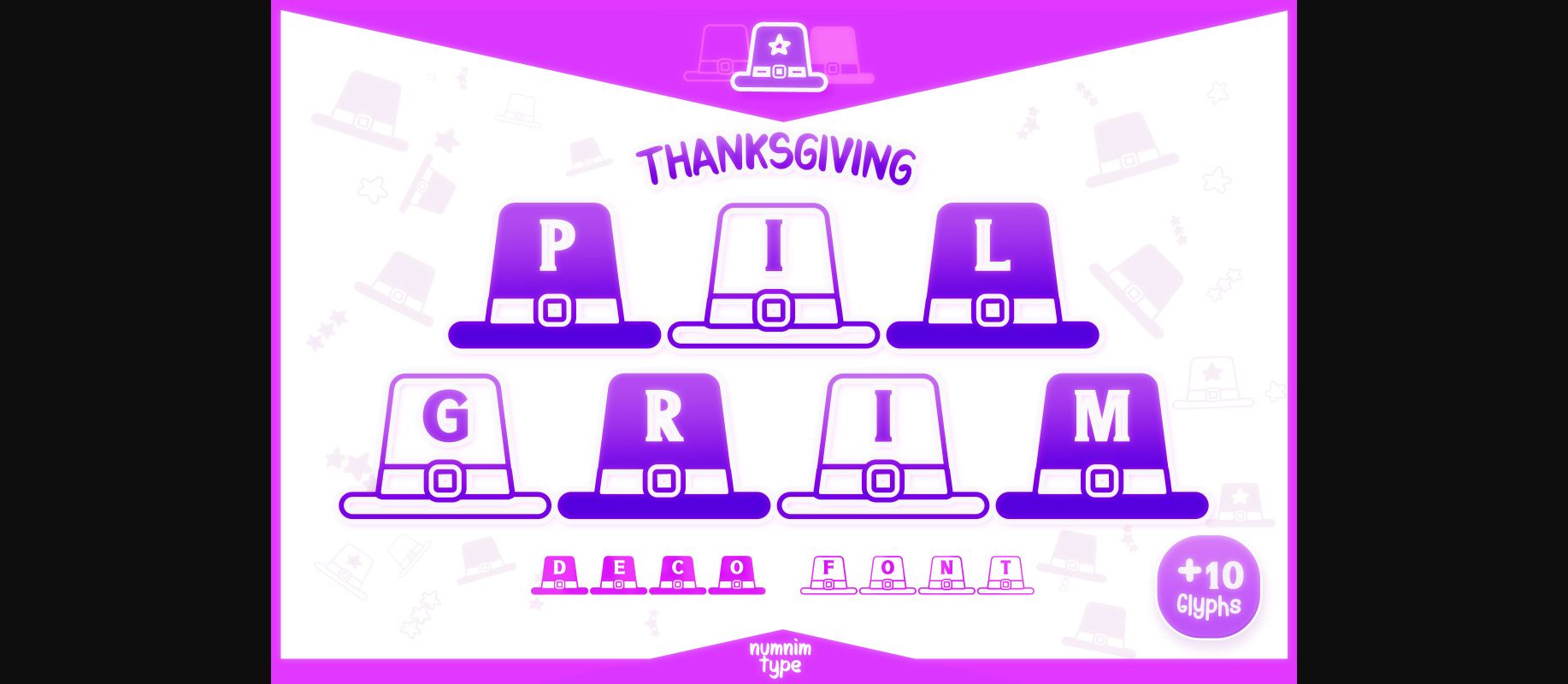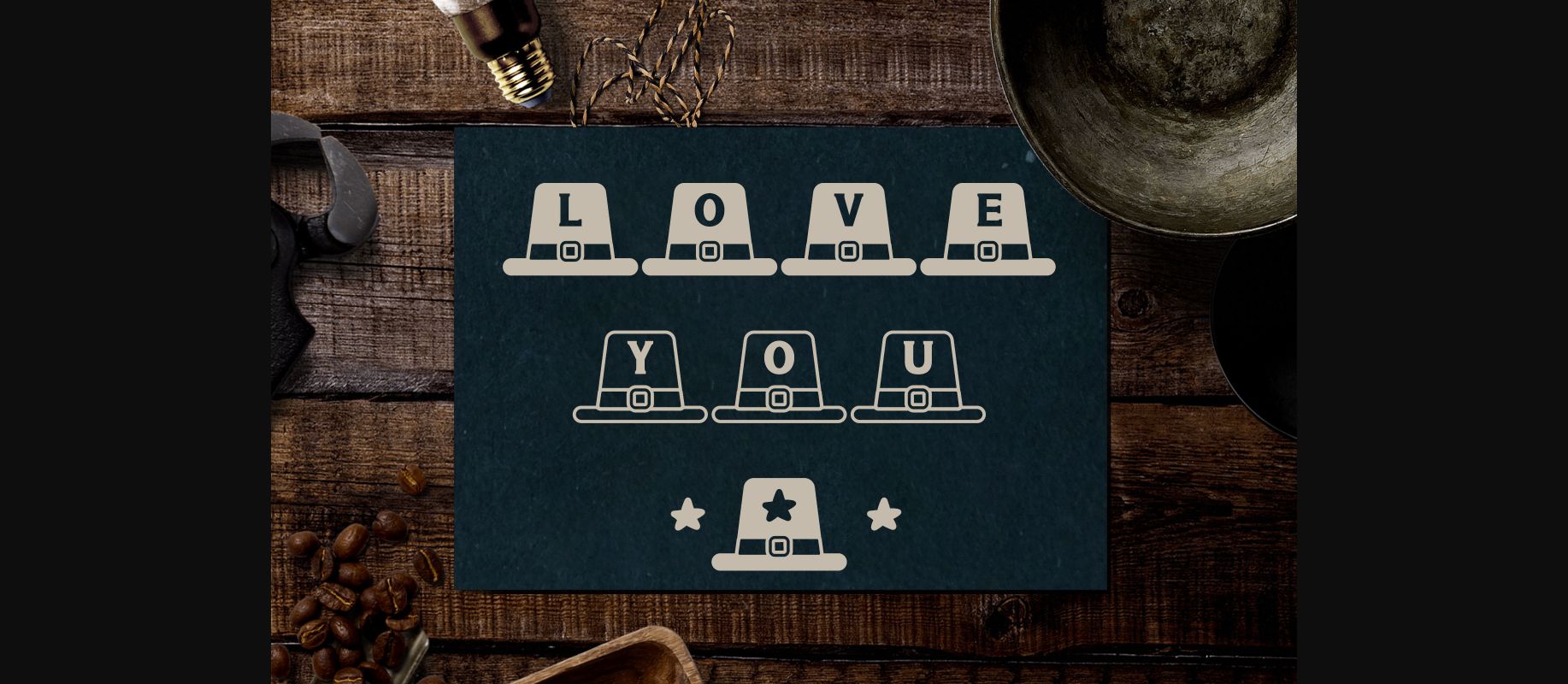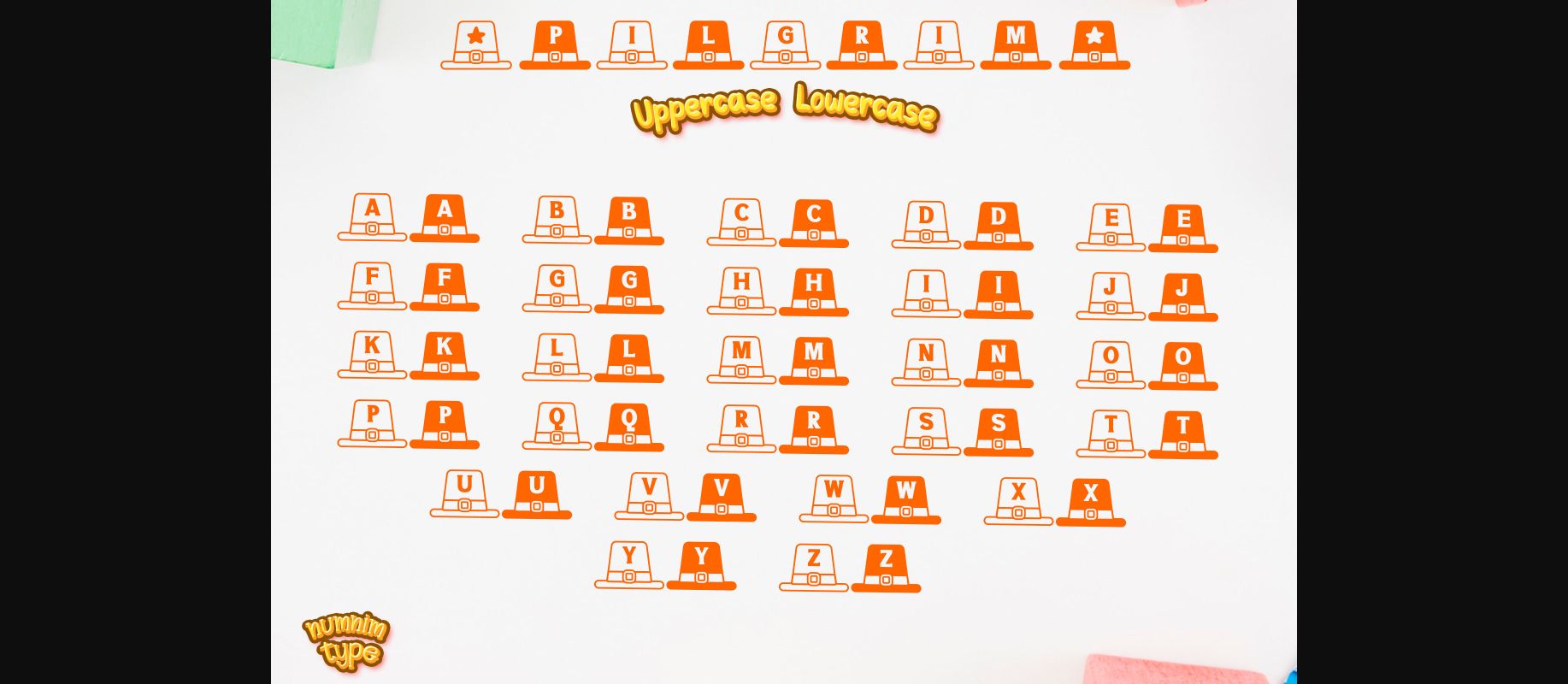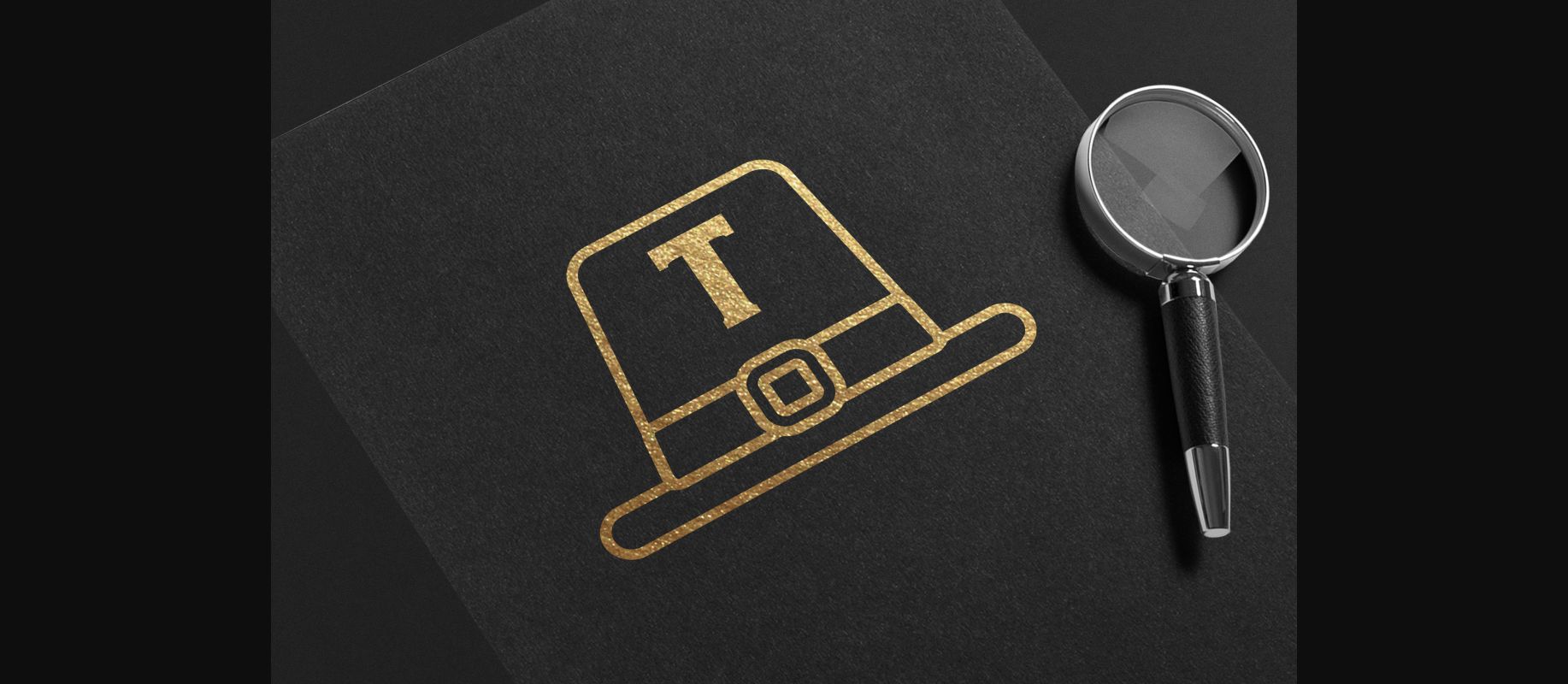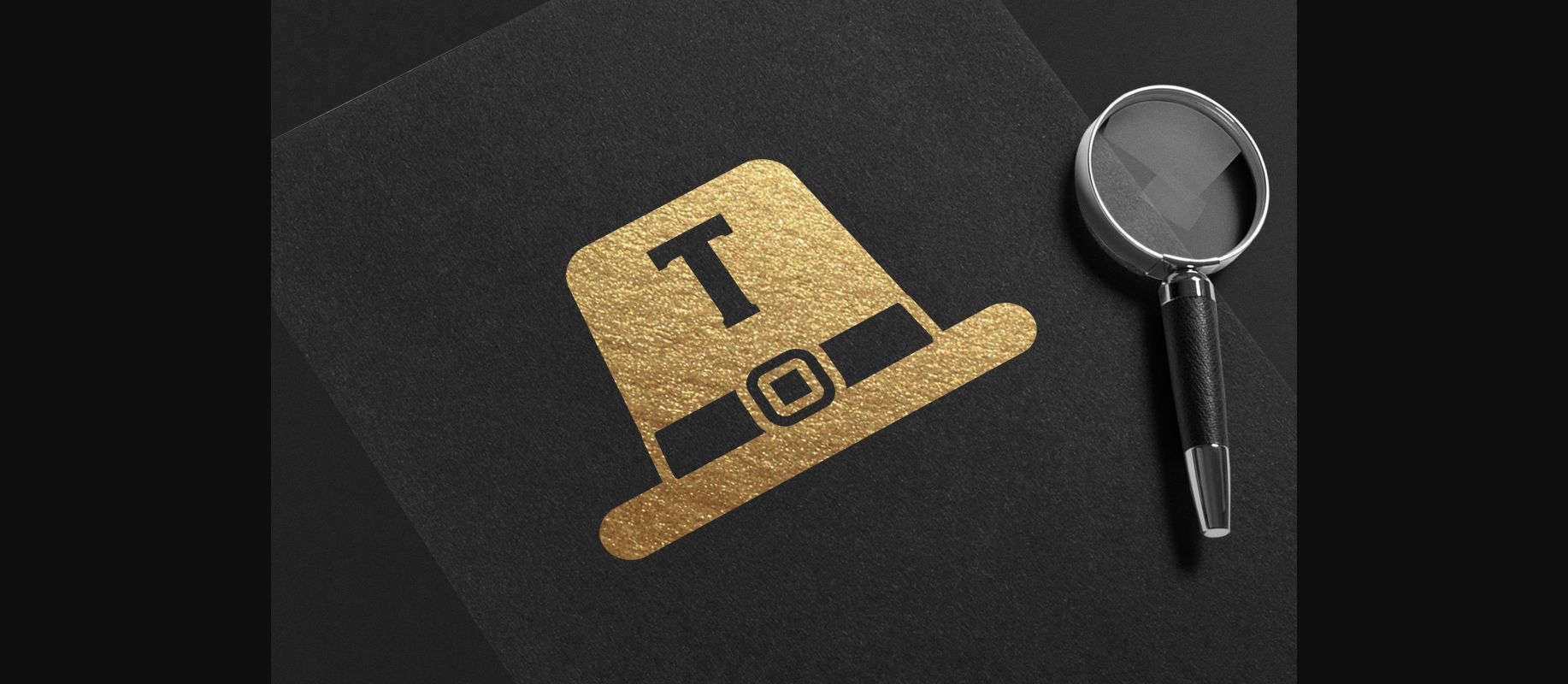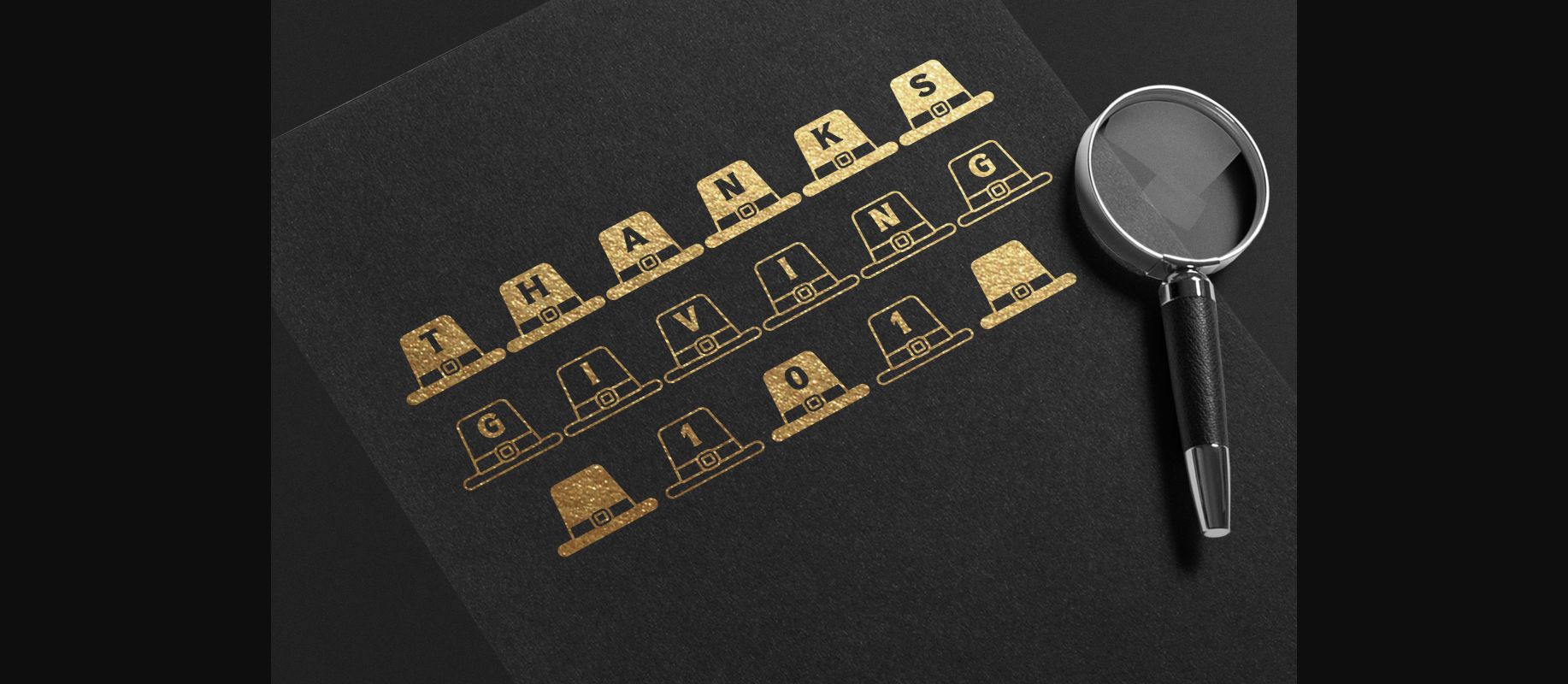
Thanksgiving Pilgrim Font
About Thanksgiving Pilgrim Font
Thanksgiving Pilgrim is a cool and uniquely designed decorative font, created particularly for the Thanksgiving day. This font is PUA encoded which means you can access all of the glyphs and swashes with ease!